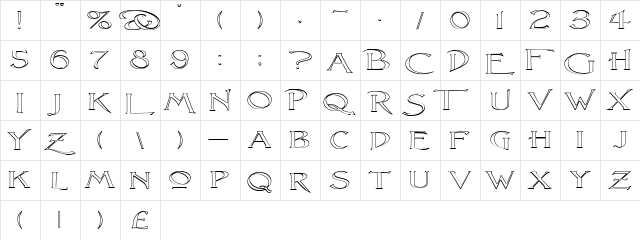
Lightfoot Outline Extra-expanded Regular
Design Context for Lightfoot Outline Typeface
Lightfoot Outline brings ornamental detail and strong personality to headlines and identities, where visual impact matters more than quiet functionality. The delicate stroke weight brings airiness and refinement to layouts.
Font Pairing: Pair with a clean neutral sans-serif for body copy to let Lightfoot Outline's character lead without overwhelming the composition.
Pro Tip: Treat Lightfoot Outline as the centrepiece of your typographic hierarchy. One strong heading set in a decorative face can carry an entire layout.